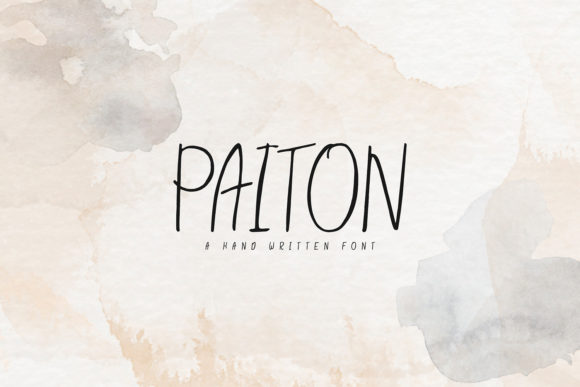
In a world saturated with digital noise, your designs and creations need a touch of authenticity, a breath of fresh air that cuts through the clutter and grabs attention. Paiton Font, the enchanting script font from Creative Tacos, is your gateway to unlocking that elusive charm.
With its delicate, handwritten strokes and an unassuming elegance, Paiton Font is a visual delight. Its clean, naked skin-like texture exudes a sense of purity and simplicity that invites connection and trust. Whether you're crafting chalkboard quotes that resonate or designing teaching materials that inspire, Paiton Font is your perfect companion.
Step into a world of creativity unbound, where your designs dance with a life of their own. Paiton Font's authentic look adds a personal touch to every project, making your creations stand out from the crowd. Its realistic feel draws your audience in, creating an intimate bond that transforms them from passive observers into active participants in your story.
Paiton Font isn't just a font; it's an extension of your imagination, a tool that empowers you to bring your creative visions to life. Its versatility knows no bounds, adapting seamlessly to a myriad of design aesthetics. From whimsical illustrations to heartfelt messages, Paiton Font effortlessly elevates your designs, adding a layer of sophistication that speaks volumes.
But Paiton Font is more than just a pretty face. Its meticulously crafted characters ensure readability and clarity, making it the perfect choice for any project that demands both form and function. Whether you're designing logos, branding materials, or eye-catching social media posts, Paiton Font delivers a visual impact that leaves a lasting impression.
With Paiton Font, you're not just downloading a font; you're embarking on a creative journey, a voyage of self-expression where your imagination knows no limits. Its user-friendly nature makes it accessible to designers of all skill levels, empowering you to create captivating designs that captivate and inspire.